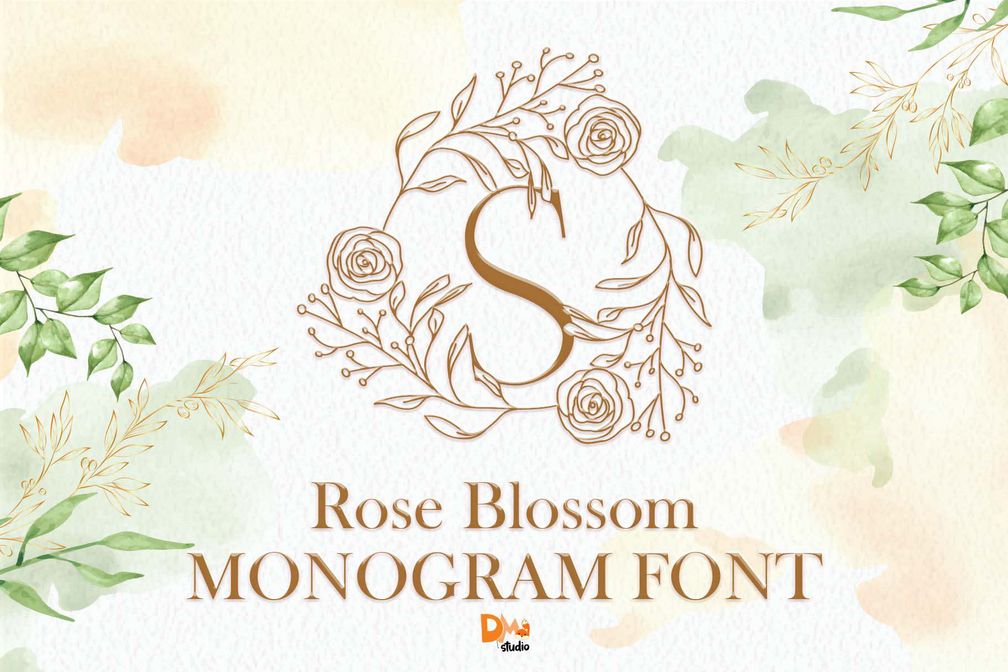
Rose Blossom Monogram
Rose Blossom Monogram – Romantic Floral Monogram Font
Rose Blossom Monogram is a charming and delicate monogram font inspired by blooming roses and intricate floral elements. Perfect for romantic and elegant designs, this font is a beautiful choice for wedding stationery, personalized branding, boutique packaging, and creative projects that call for a soft and graceful touch. Each letter is adorned with hand-drawn rose blossom illustrations, adding natural beauty and timeless charm.
• Rose-Inspired Floral Elements – Features elegant rose blossoms intertwined with every character.
• Ideal for Romantic & Elegant Designs – Suitable for weddings, personalized gifts, name logos, and high-end branding.
• Graceful Hand-Drawn Details – Adds a personal and feminine aesthetic to your monogram work.